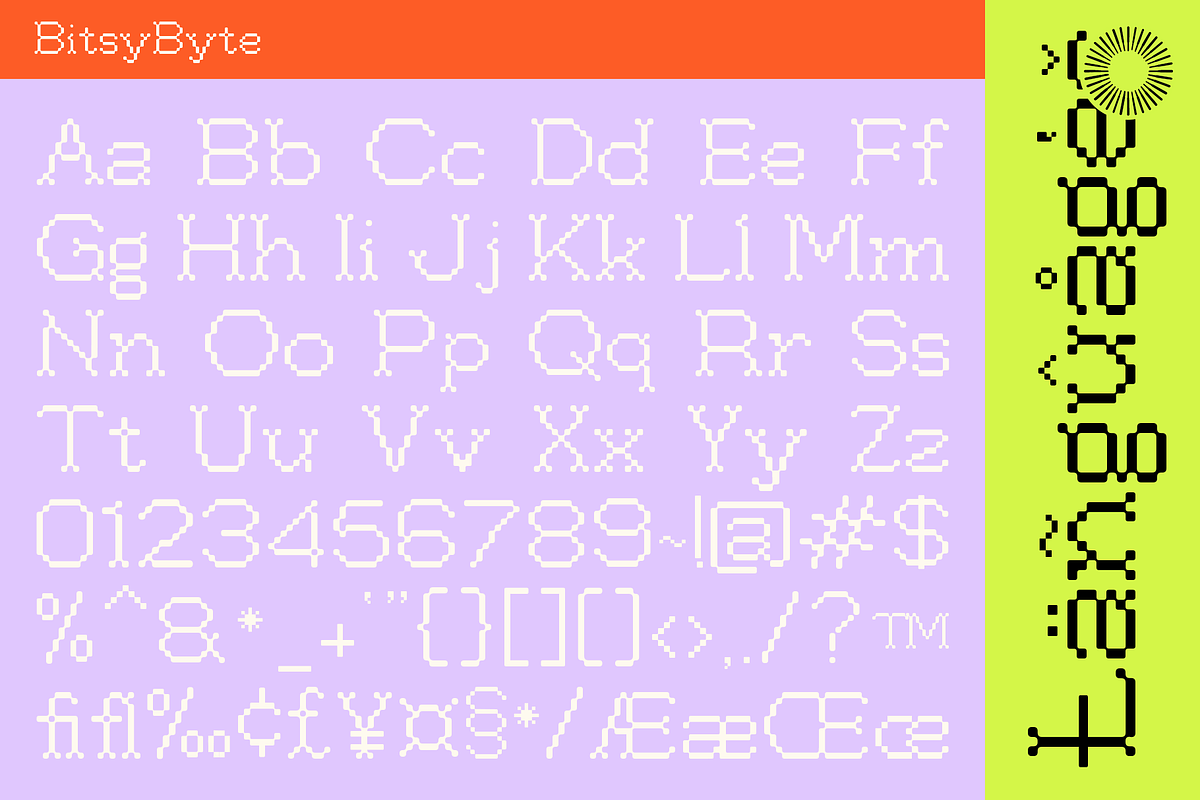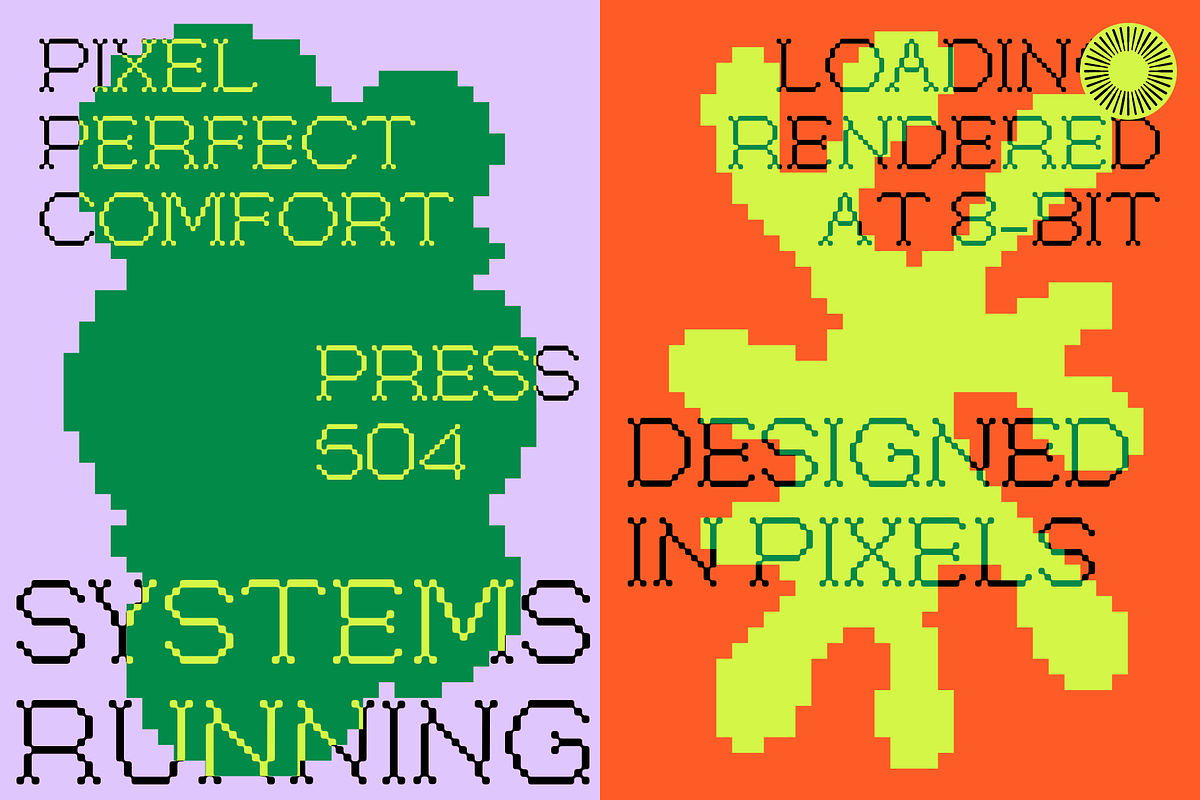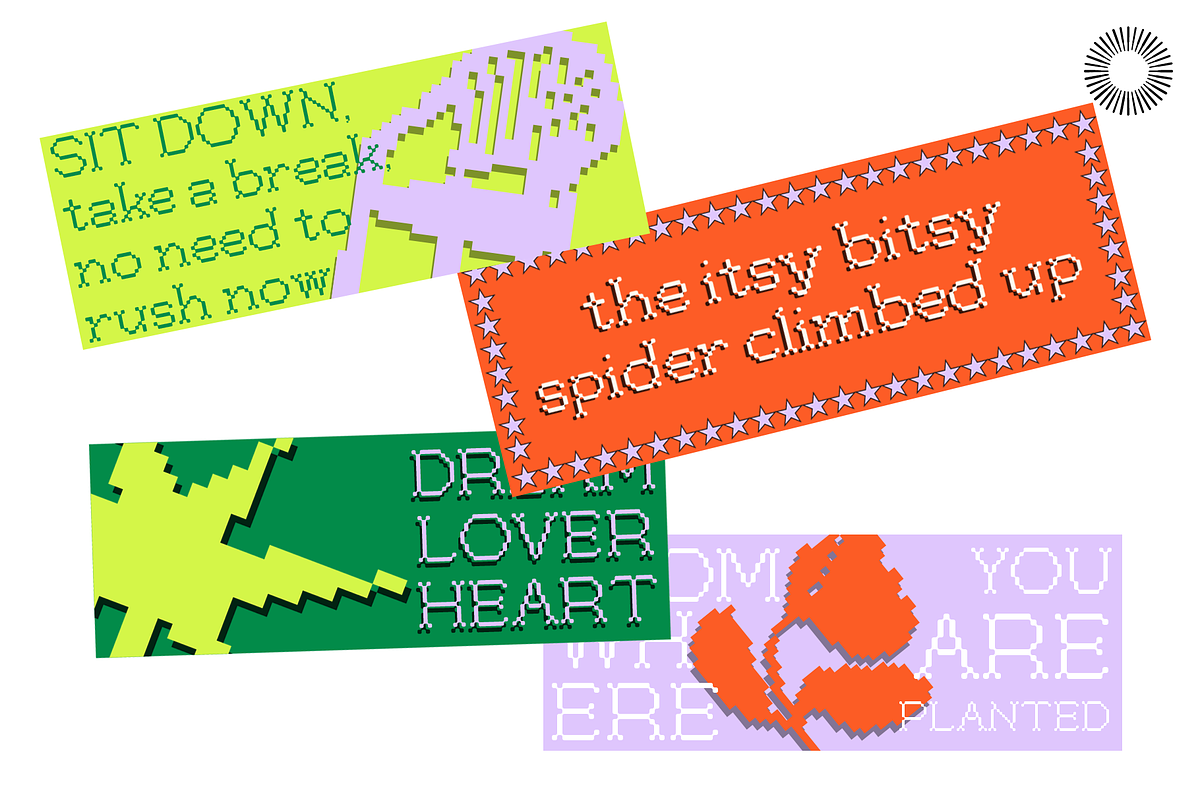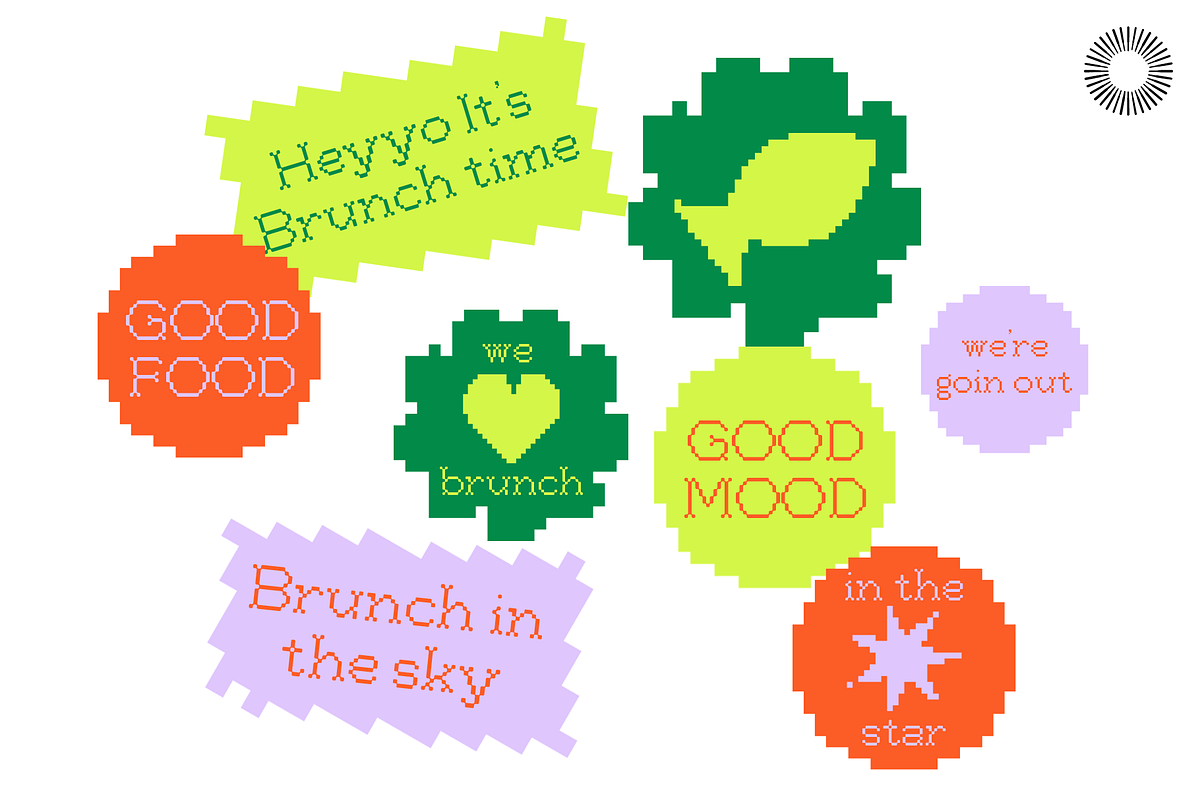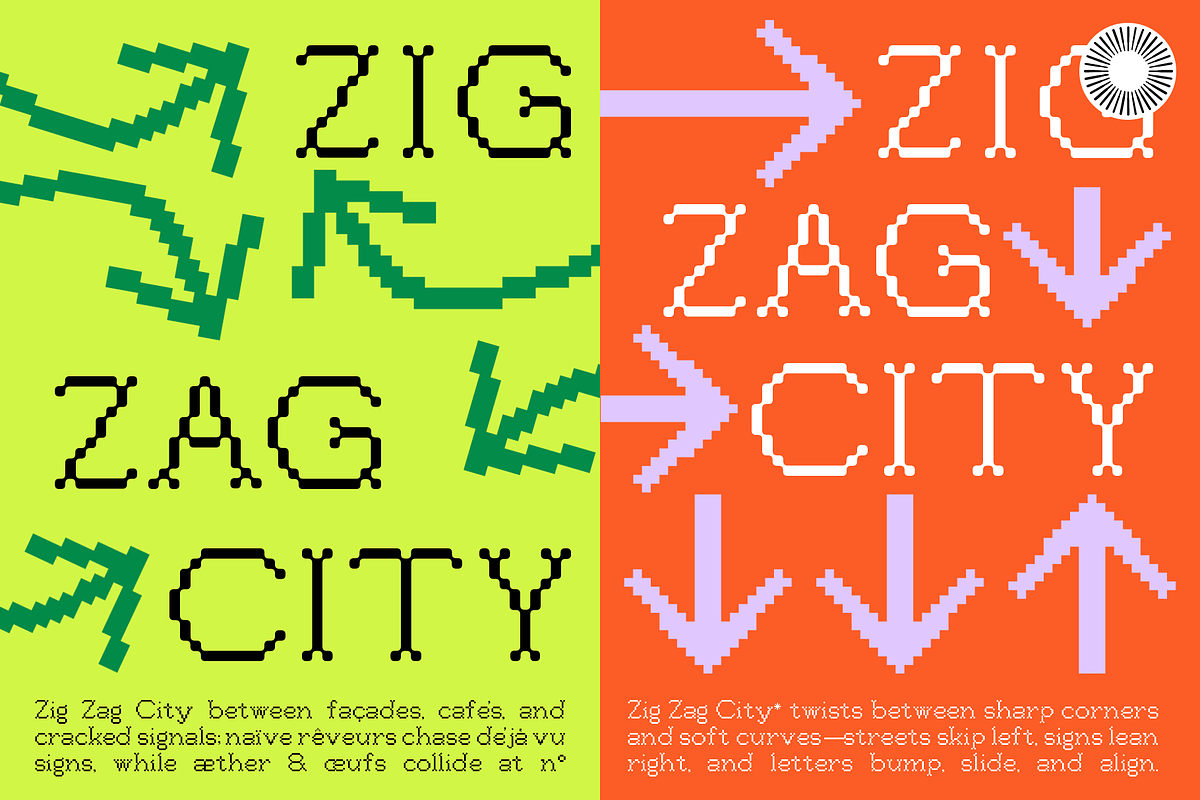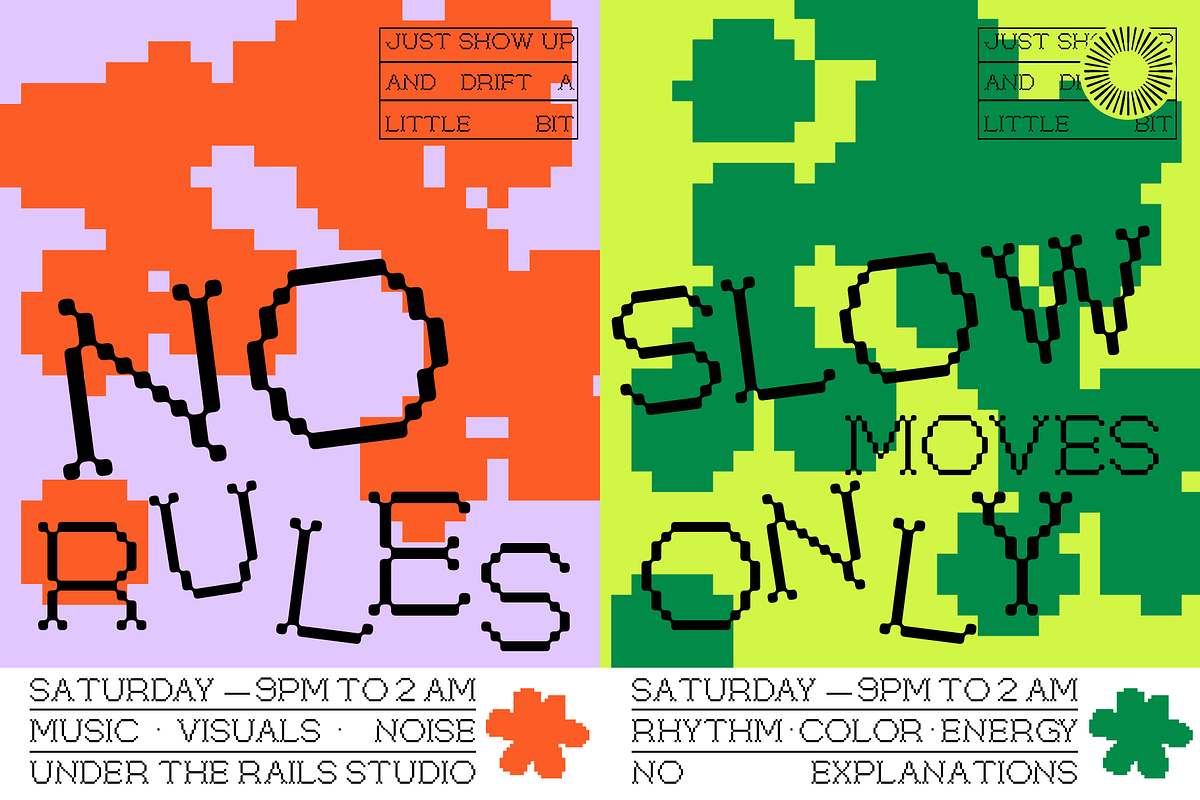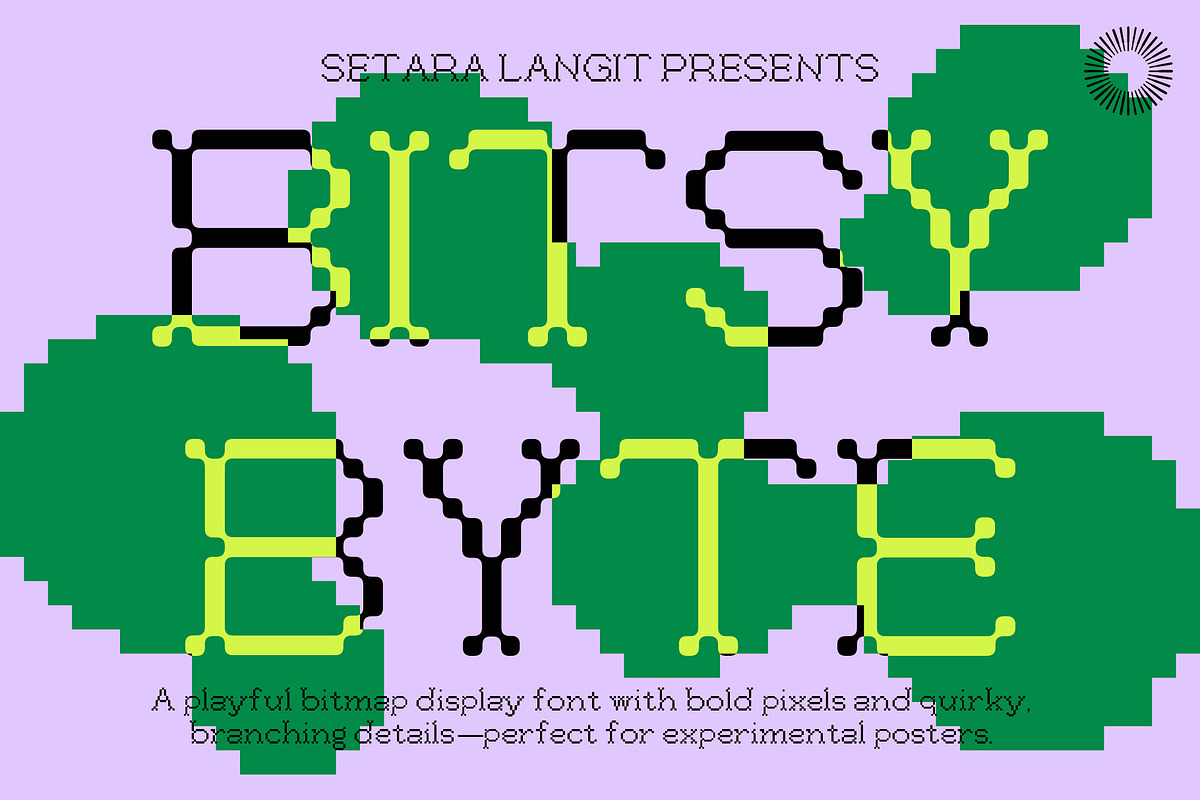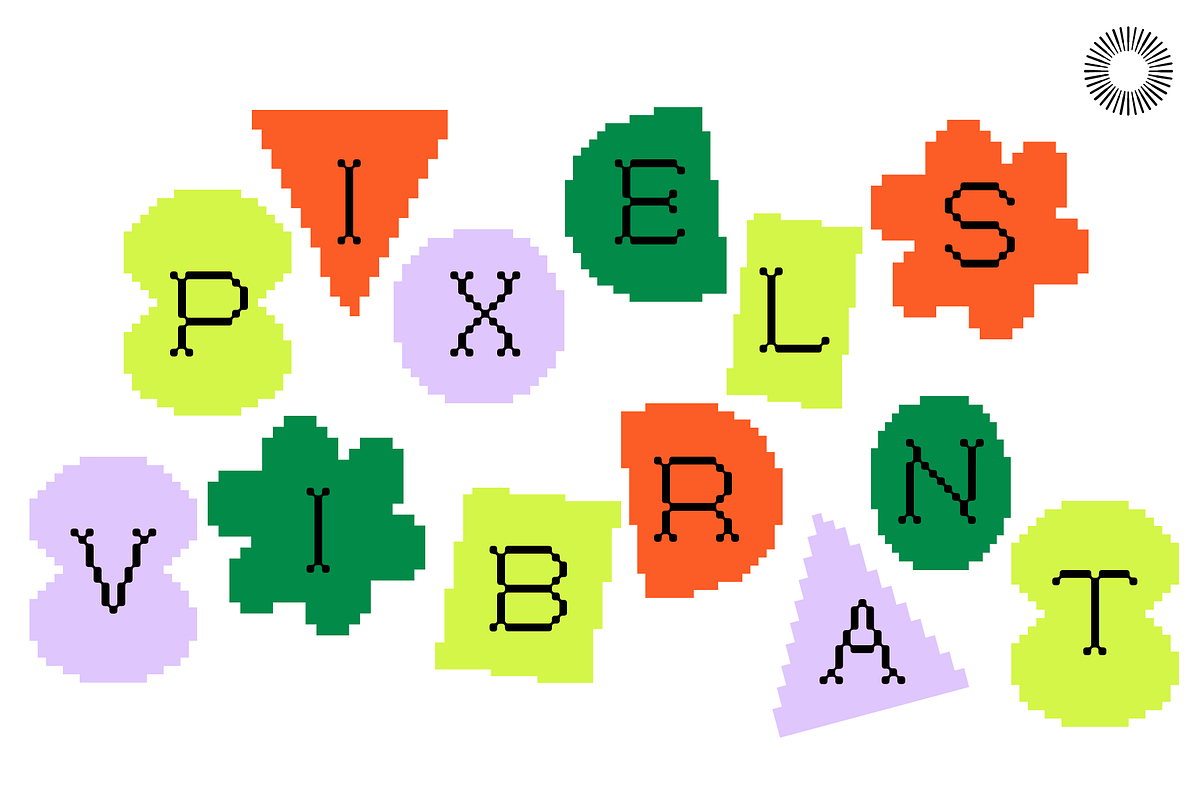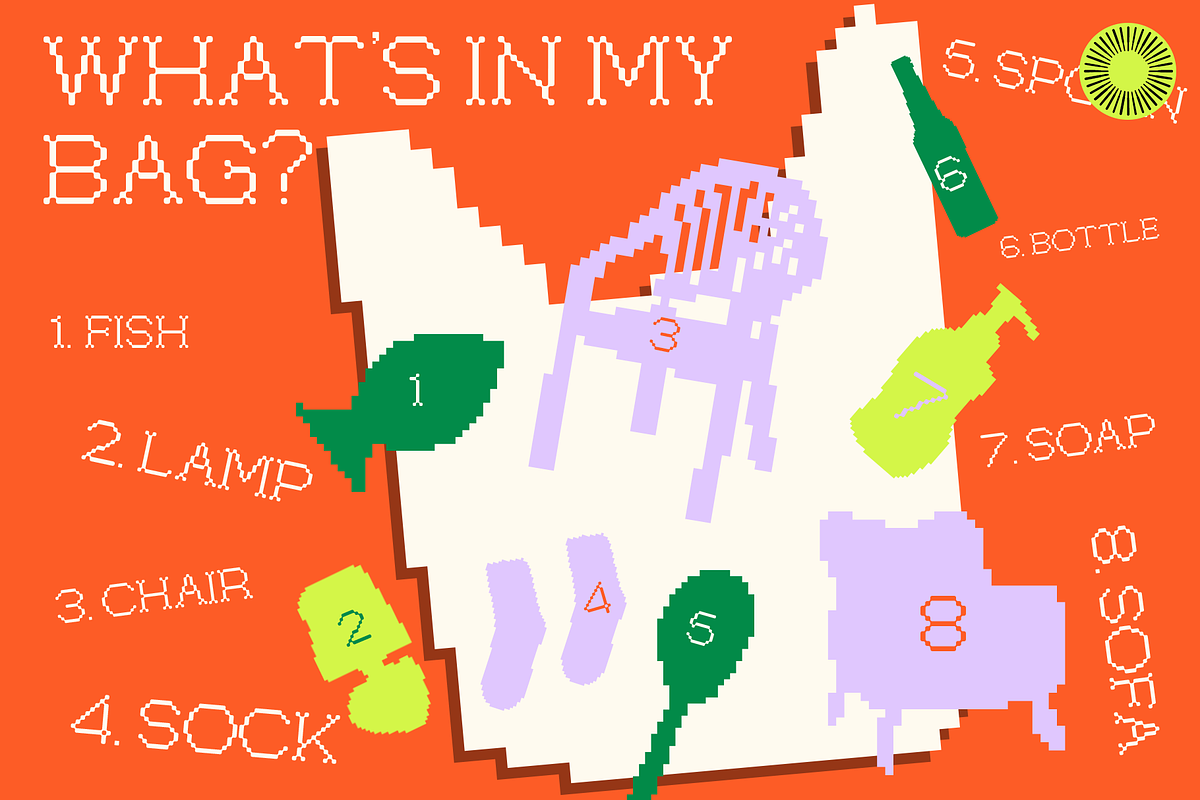
Bitsy Byte
Bitsy Byte – Pixel-Inspired Display Font
Bitsy Byte is a pixel-inspired display font built from the visual logic of digital bytes and low-resolution graphics. It translates the structure of pixel blocks into clean, intentional letterforms that feel playful, technical, and controlled at the same time. Rather than copying classic bitmap fonts exactly, Bits Byte reinterprets pixel construction with smoother flow and consistent spacing. Each character is designed to retain the charm of pixel steps while avoiding excessive rigidity, making the font more usable for modern branding and layout work. The letterforms are built with modular strokes that echo the idea of “bits” forming “bytes.” Slight curves and rounded joints are introduced deliberately to soften the grid-based structure. This prevents the font from feeling overly mechanical or purely nostalgic, allowing it to work across both retro-inspired and contemporary digital projects. Bitsy Byte is not intended for long body text. Its strength lies in visual impact, structure, and concept. At larger sizes, the pixel construction becomes a strong graphic statement. At smaller display sizes, the simplified shapes help maintain legibility compared to more complex pixel fonts. This typeface works especially well for designers who want a digital or tech reference without relying on overly decorative or noisy styles.
Ideal For
- Logo design
- Headlines & titles
- Posters & flyers
- Game & digital-themed visuals
- Tech branding & startups
- Album covers
- Packaging & merchandise
- Social media graphics
- Pixel-inspired display typeface
- Clean, modular letter construction
- Balanced spacing for display use
- Multilingual support (basic Latin)
- Easy to combine with modern sans-serif fonts
Why Choose Bits Byte Pixel-style fonts are often limited to retro or gaming aesthetics. Bits Byte is designed to go further—keeping the pixel identity while offering a cleaner, more adaptable look for branding and commercial projects. Its restrained design makes it flexible, readable, and visually distinctive without overwhelming the layout.
If you are looking for a pixel-inspired font that feels intentional, modern, and concept-driven, Bits Byte is a strong and practical choice.